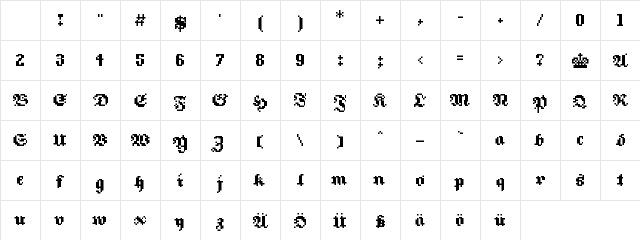
8Fraktura RC draws on the rich tradition of blackletter calligraphy, with dense, angular strokes that evoke medieval manuscripts and old-world craftsmanship.
Font Pairing: Pair with a clean neutral sans-serif for body copy to let 8Fraktura RC's character lead without overwhelming the composition.
Pro Tip: Reserve 8Fraktura RC for display and logo use - pair it with a clean sans-serif for body copy to prevent the composition from feeling oppressive.